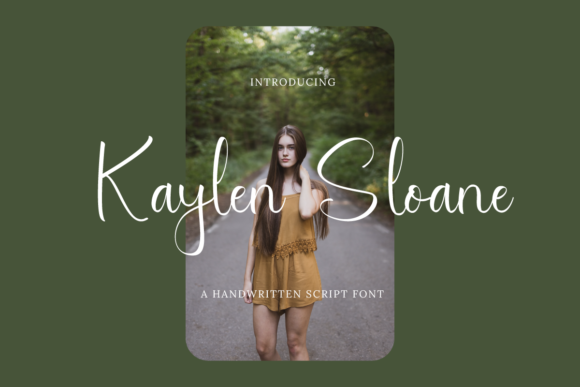
Introducing Kaylen Sloane, the captivating script font that exudes effortless elegance and a timeless charm. Crafted with the utmost care by the skilled artisans at Okara Studio, Kaylen Sloane is not just a font; it's an artistic masterpiece that will elevate your designs to new heights.
Journey into a world of boundless creativity with Kaylen Sloane, where your imagination takes center stage. This versatile script font effortlessly adapts to a myriad of design concepts, bringing a touch of sophistication and charm to every project. Whether you're a seasoned designer seeking to captivate your audience or a novice looking to make a striking statement, Kaylen Sloane is your perfect companion.
Immerse yourself in the world of Kaylen Sloane and discover a font that dances across the screen, captivating your audience with its graceful curves and flowing lines. Let your designs bloom with elegance as Kaylen Sloane weaves its magic, transforming ordinary words into works of art. Its timeless appeal ensures that your creations will stand the test of time, leaving a lasting impression on all who behold them.
Kaylen Sloane is more than just a font; it's an experience. A fusion of art and technology, this font invites you to explore the limitless possibilities of design. Unleash your creativity and let Kaylen Sloane guide you to new horizons, creating designs that resonate with your audience on a profound level.
Don't settle for ordinary fonts that fade into oblivion. Embrace the captivating beauty of Kaylen Sloane and let your designs shine brighter than ever before. Join the ranks of discerning designers who recognize the transformative power of Kaylen Sloane and elevate your work to the realm of the extraordinary.